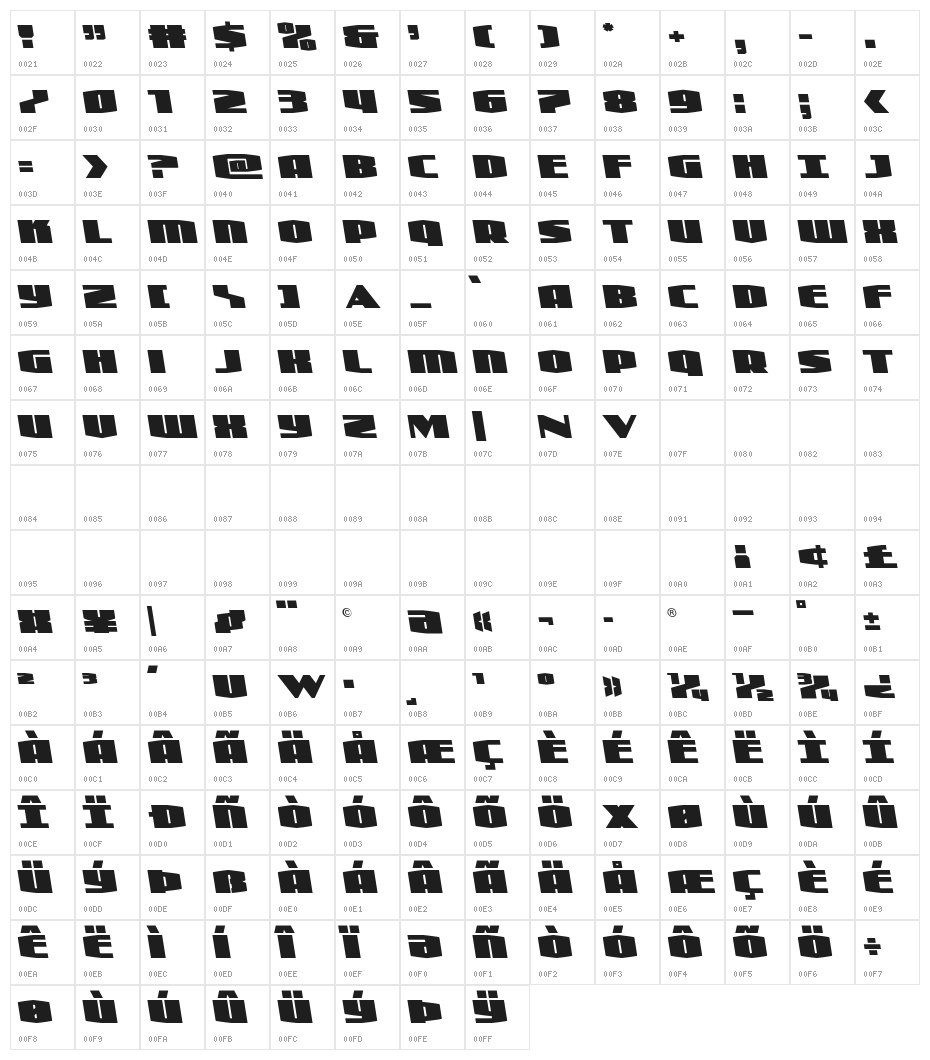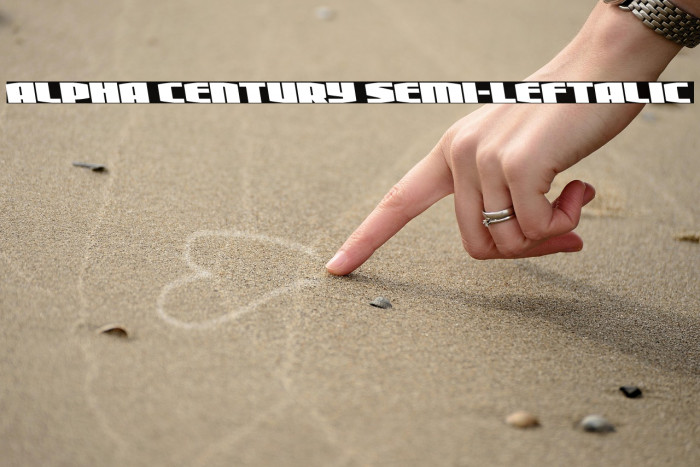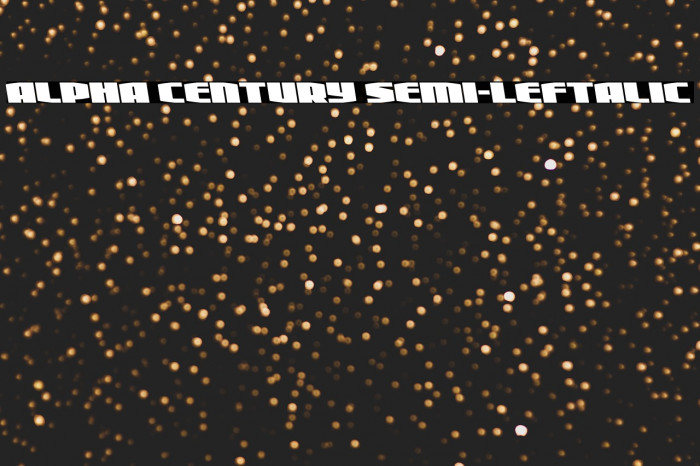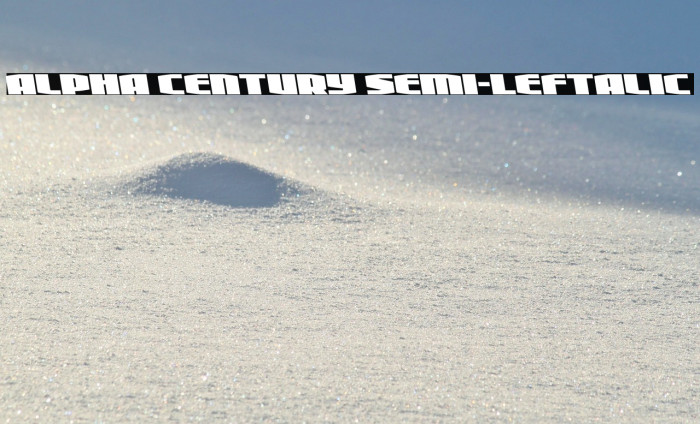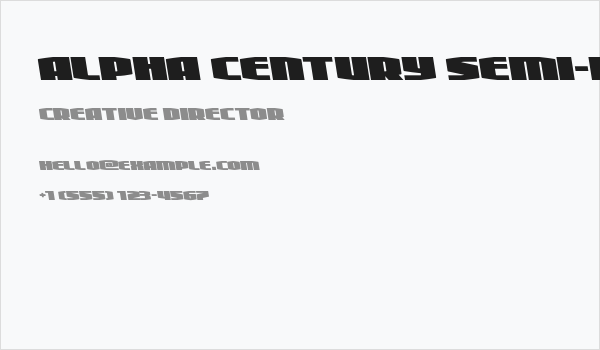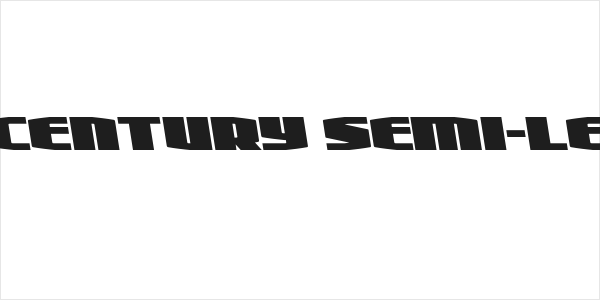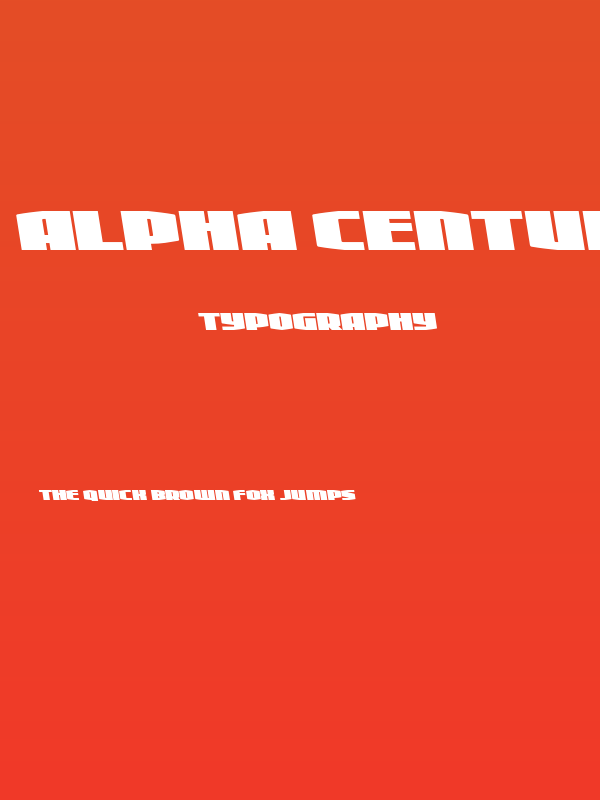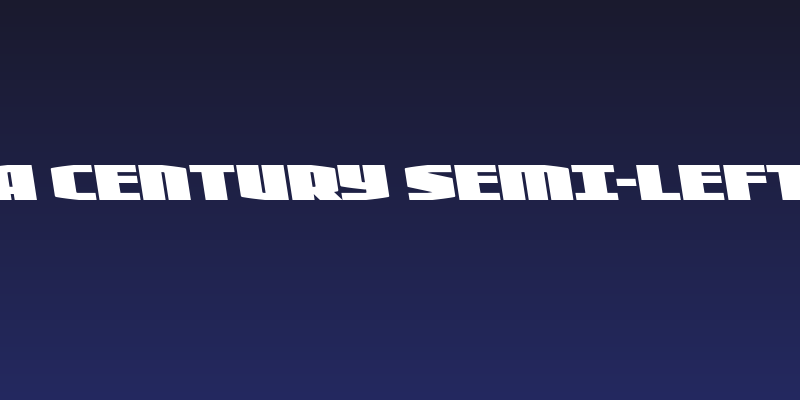
Alpha Century Semi-Leftalic Font
Alpha Century Semi-Leftalic Description
This font features a bold and striking design with a futuristic and angular aesthetic. The characters are wide and have a distinct geometric style, with sharp edges and a slightly italicized slant to the left. The uppercase and lowercase letters maintain a consistent width, creating a uniform appearance. The numbers and special characters follow the same bold and angular design, ensuring cohesion across all elements. The font's unique style makes it ideal for projects that require a modern and impactful look.